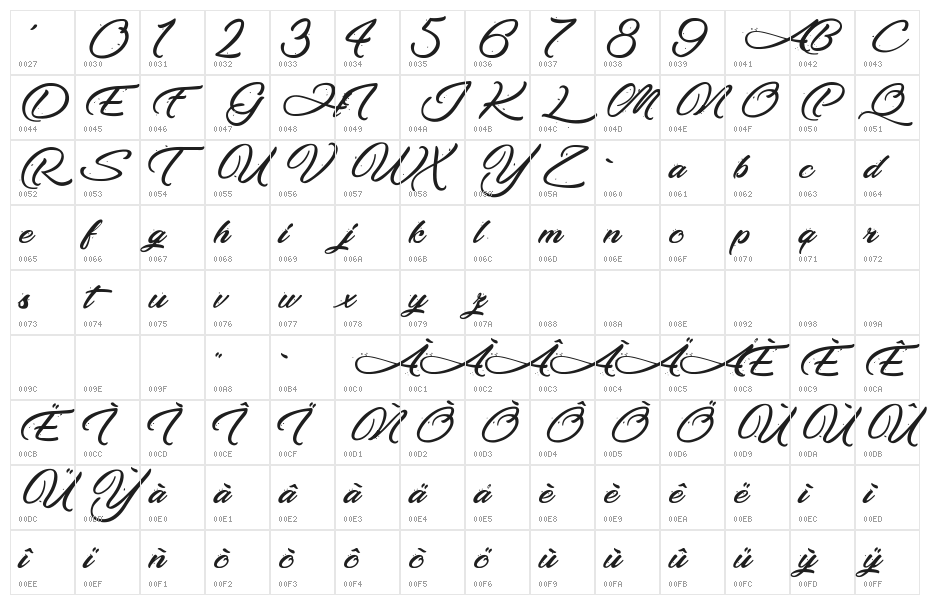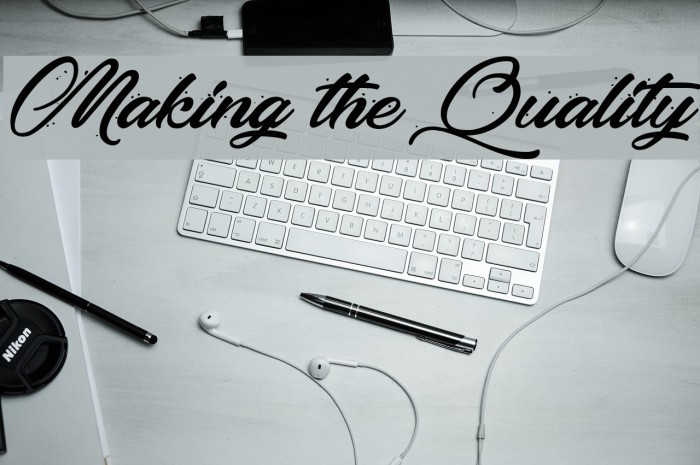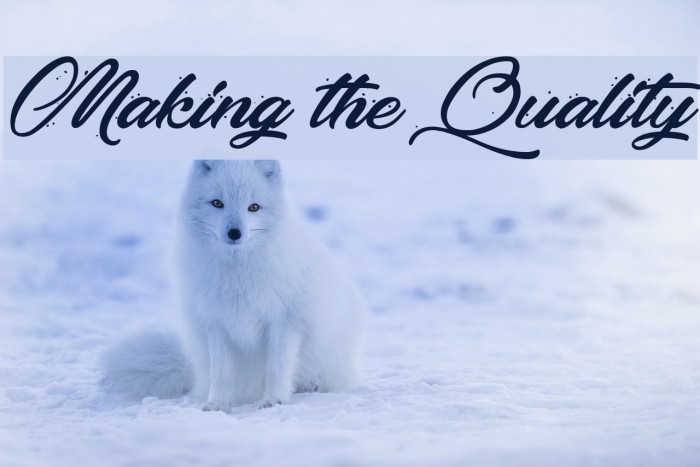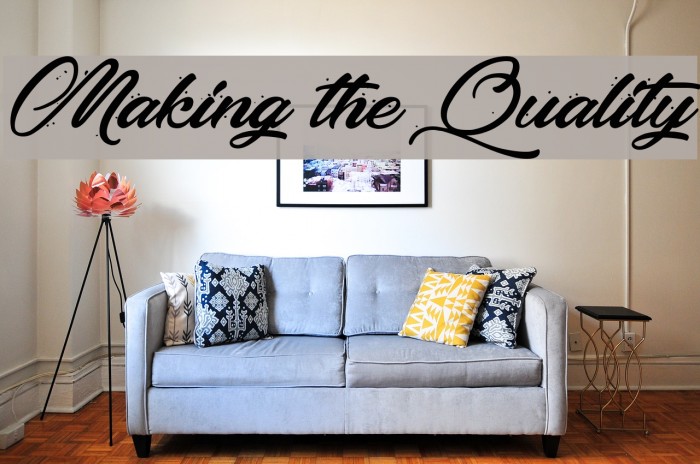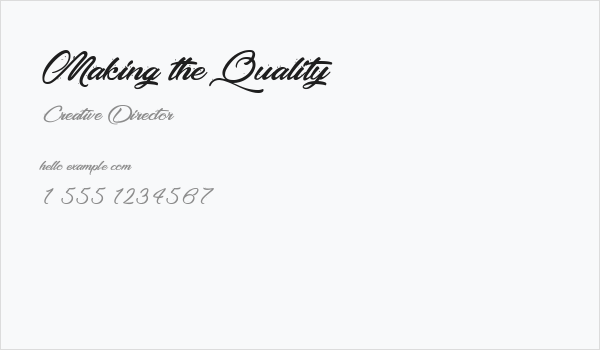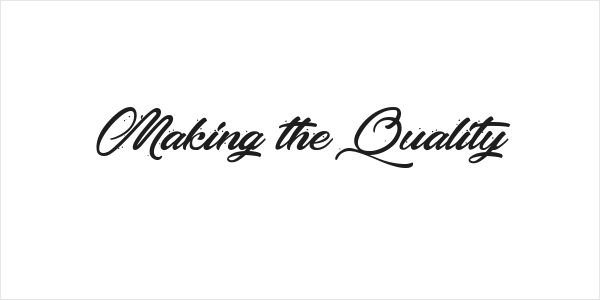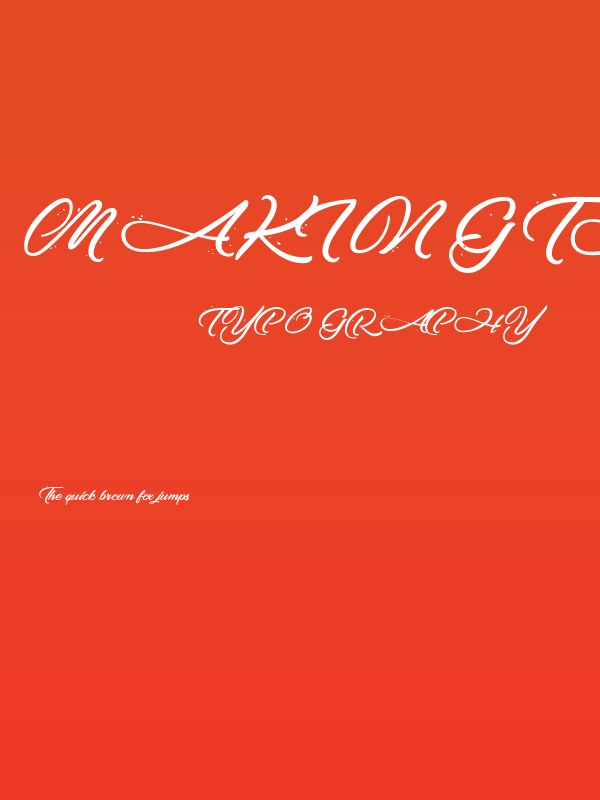
Making the Quality Font
Making the Quality Description
This font exhibits a dynamic and expressive script style, characterized by its fluid and elegant strokes. The uppercase letters are ornate, with sweeping curves and flourishes that give a sense of movement and sophistication. The lowercase letters maintain a consistent flow, with a slightly more restrained design that complements the uppercase. The numerals are clear and legible, maintaining the script's overall aesthetic. This font's unique style is further enhanced by subtle decorative elements, adding a touch of whimsy without compromising readability.
| Proposed Projects | Ideal for wedding invitations, branding projects, and elegant logo designs. |